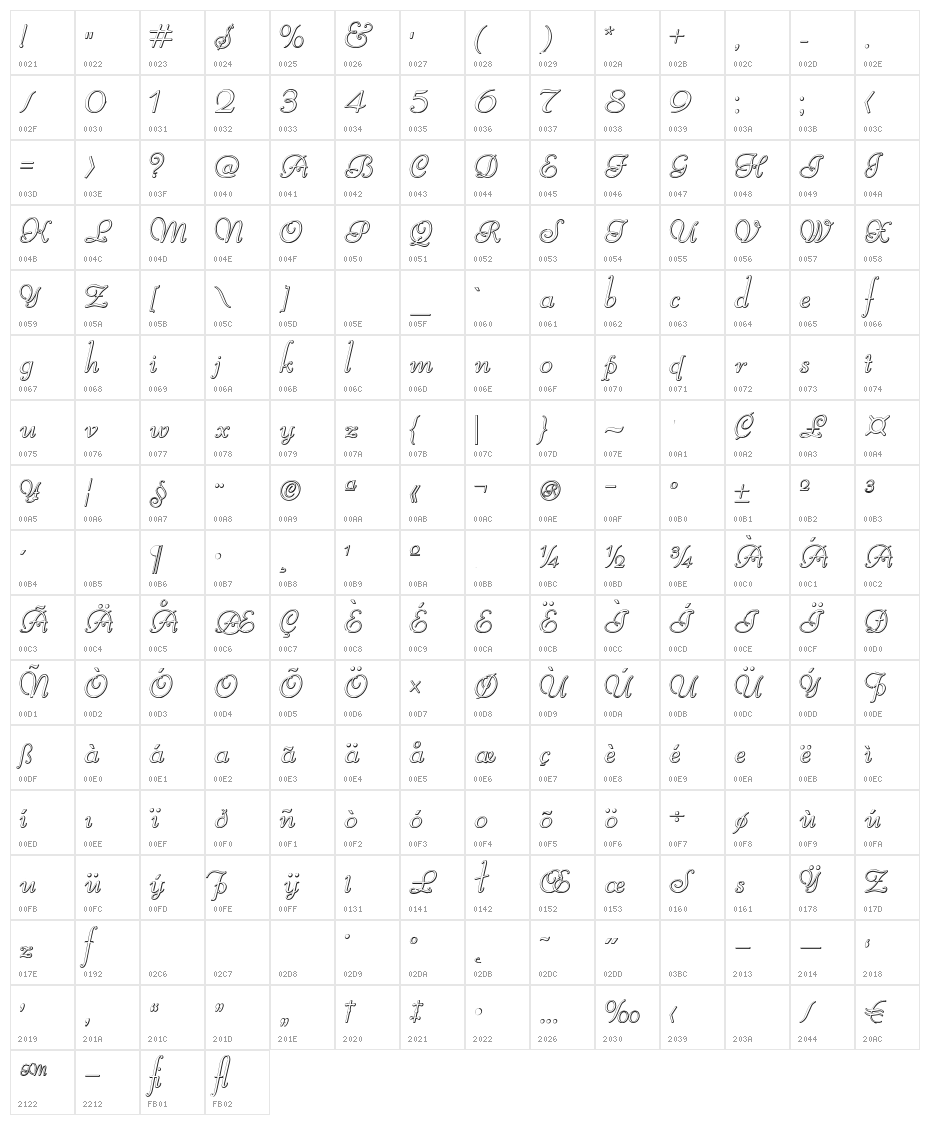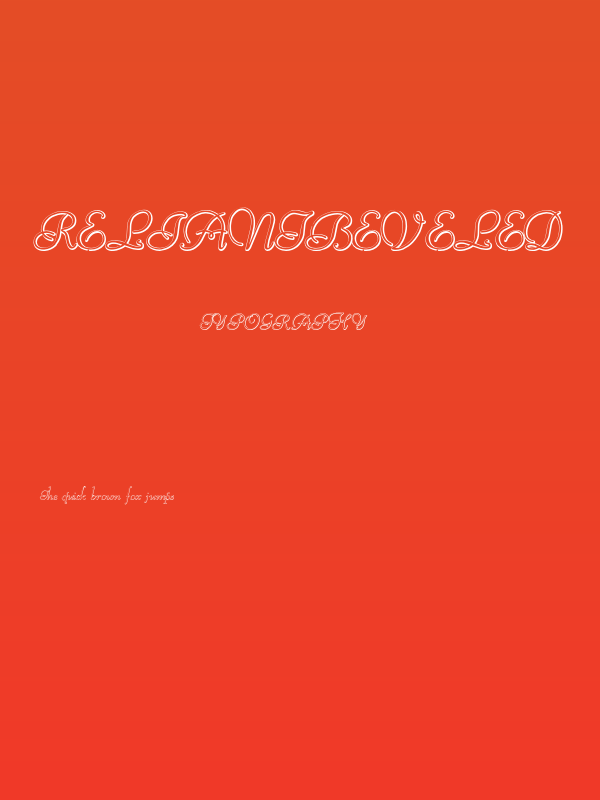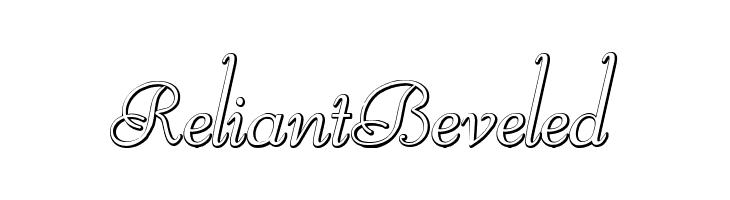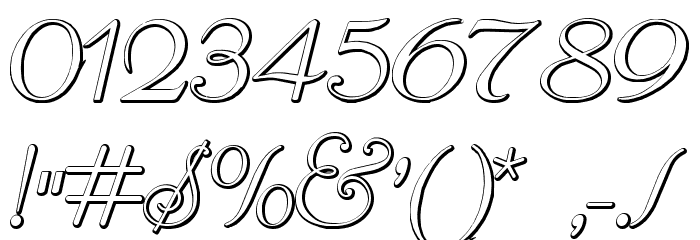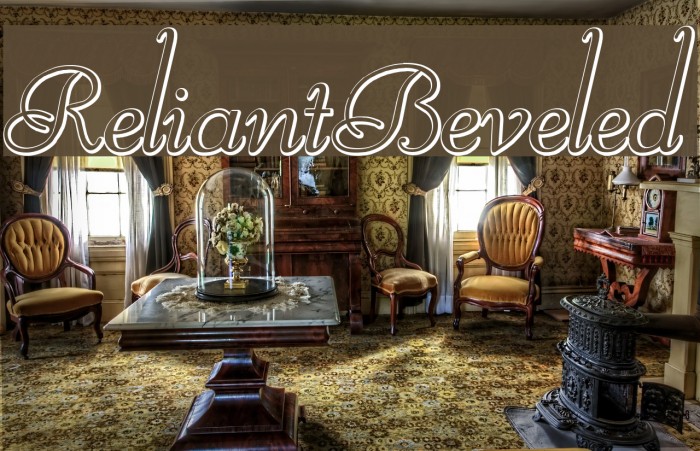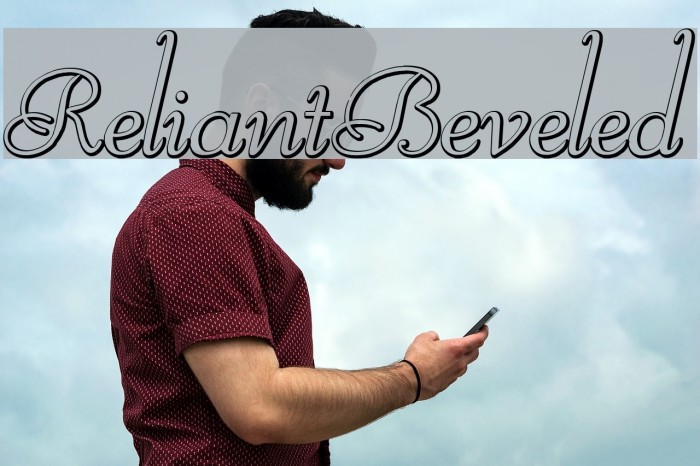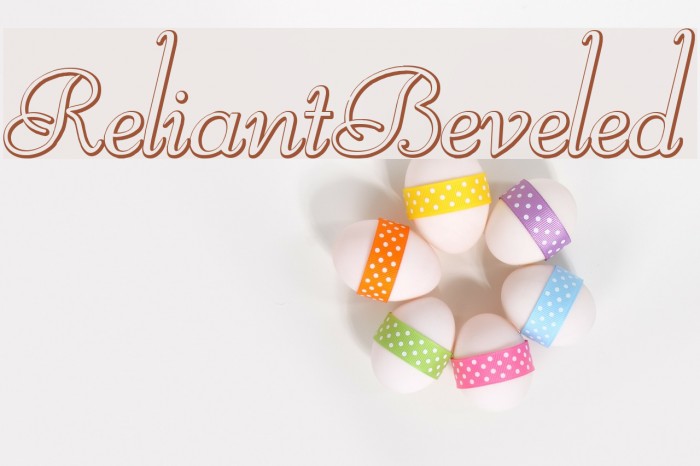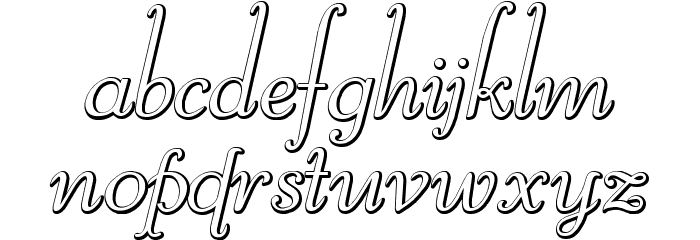
ReliantBeveled Font
ReliantBeveled Description
This font features a unique beveled design that combines elegance with a touch of boldness. The uppercase letters are crafted with a distinct flair, showcasing intricate curves and sharp edges that create a sense of movement and sophistication. The lowercase letters maintain this style, offering a harmonious balance between readability and artistic expression. Numbers and special characters are equally well-designed, ensuring consistency across all elements. The font's outline effect adds depth, making it ideal for eye-catching designs.
| Use Case | Headlines, Logos, Decorative elements |
| Proposed Projects | Ideal for branding, logos, headlines, and decorative purposes where a touch of elegance and uniqueness is desired. |